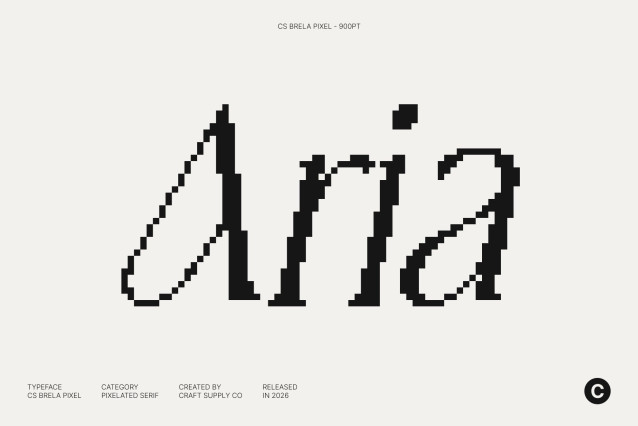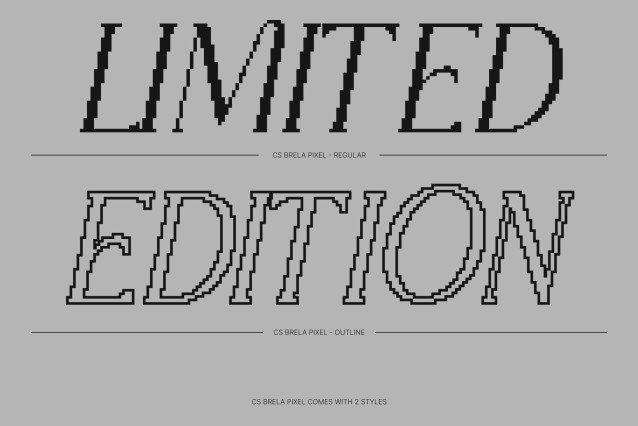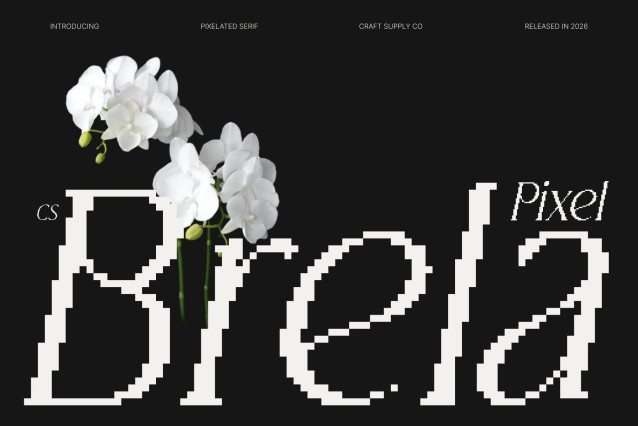
CS Brela Pixel Font
CS Brela Pixel Font This is an elegant serif font reinterpreted through a pixel-inspired lens, combining refined letterforms with a relaxed, approachable personality. Its simple and well-balanced shapes ensure clarity and legibility, while the pixel construction introduces a subtle retro-digital feel. This fusion creates a serif font that feels elegant yet casual, blending classic sophistication with nostalgic pixel character.
Playful Pixel Ligatures for Visual Interest
A standout feature of this font is its playful ligatures rendered in pixel style. These creative connections add movement and charm, giving the typography a lively rhythm while maintaining readability. The pixel ligatures bring a unique visual accent that feels expressive, decorative, and perfectly suited for eye-catching digital compositions.
Simple Forms with Refined Retro Elegance
The strength of this font lies in its simplicity. Clean serif structures provide a timeless foundation, while pixel detailing adds a distinctive old-digital aesthetic inspired by early screen typography. This balance allows the font to feel refined and modern, yet nostalgic and playful ideal for designers seeking elegance with character.
Perfect for Fashion, Luxury, and Digital Branding
This font works beautifully for fashion branding, luxury-inspired visuals, logos, posters, and stylish social media designs. Its elegant serif form paired with pixel charm makes it perfect for projects that want to feel fashionable, creative, and digitally expressive, while still maintaining a polished and confident tone.